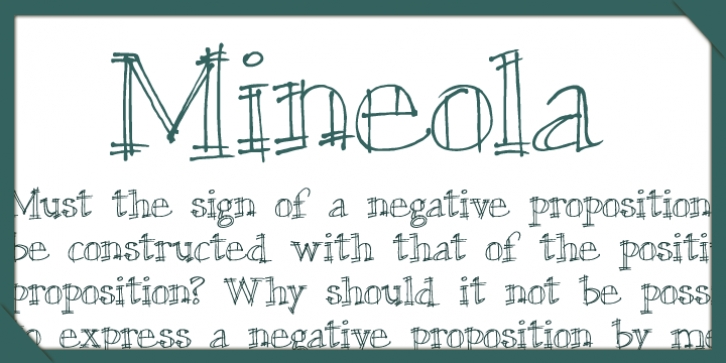
Mineola got tired of being like all the other serifed fonts, got some hip body art, and moved to the cool part of town.
But every so often, when no one’s watching, Mineola puts on a light blue oxford shirt and listens to top 40 radio.